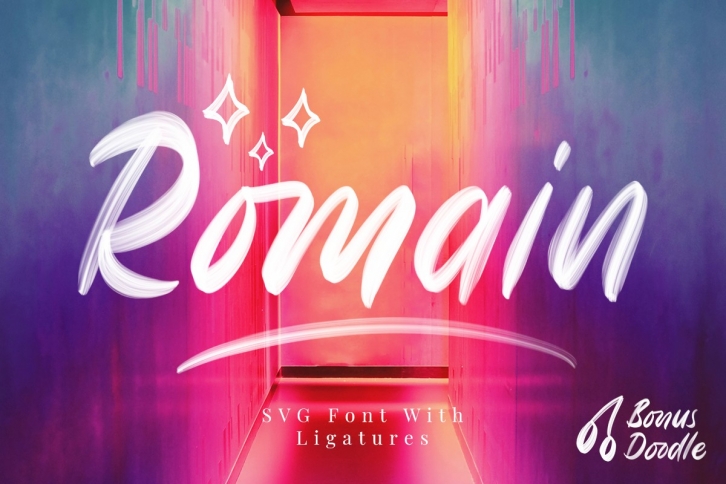
Romain SVG Sans FONT Download
Romain SVG Sans Font Download
Romain SVG Sans is a gorgeous font that was realeased on January 18, 2020. The font can be used in many style contexts and design environments. Perfect for invitations, magazines, websites, logos, and more! It was designed by Rillatype and the file size is 11.82 MB. Thanks for checking out this font!